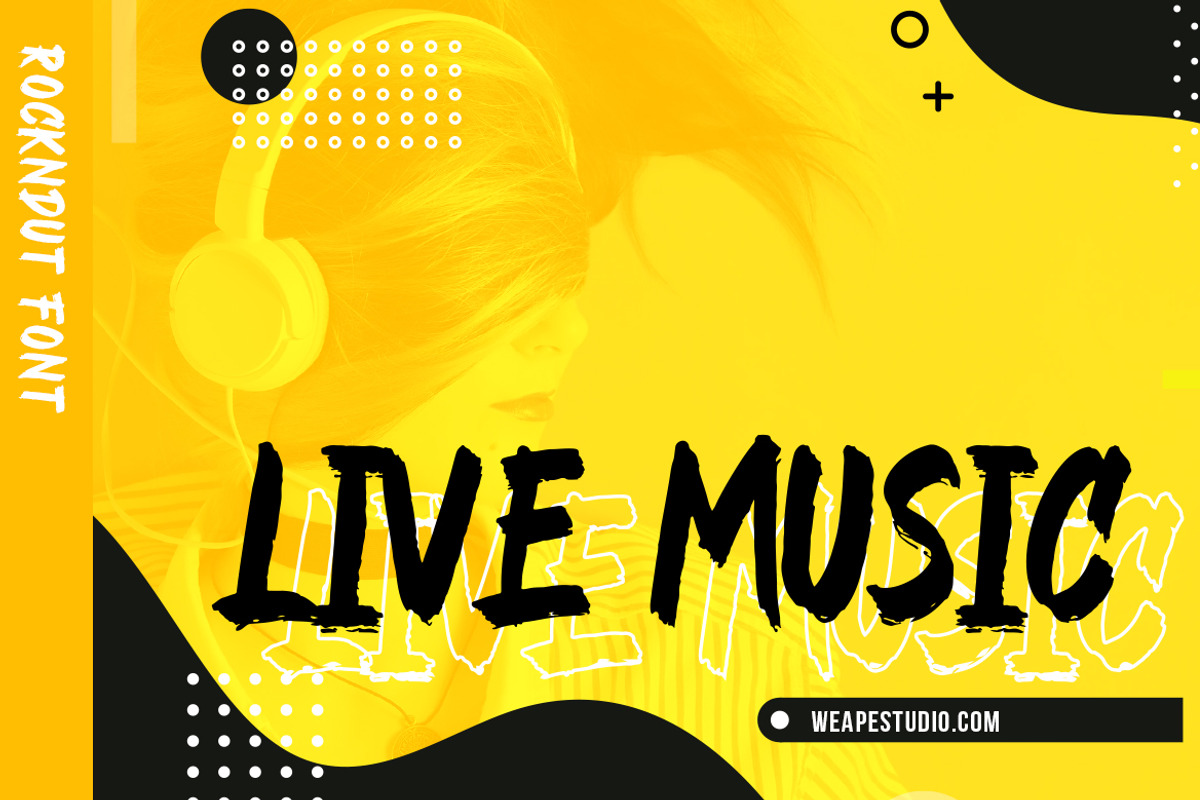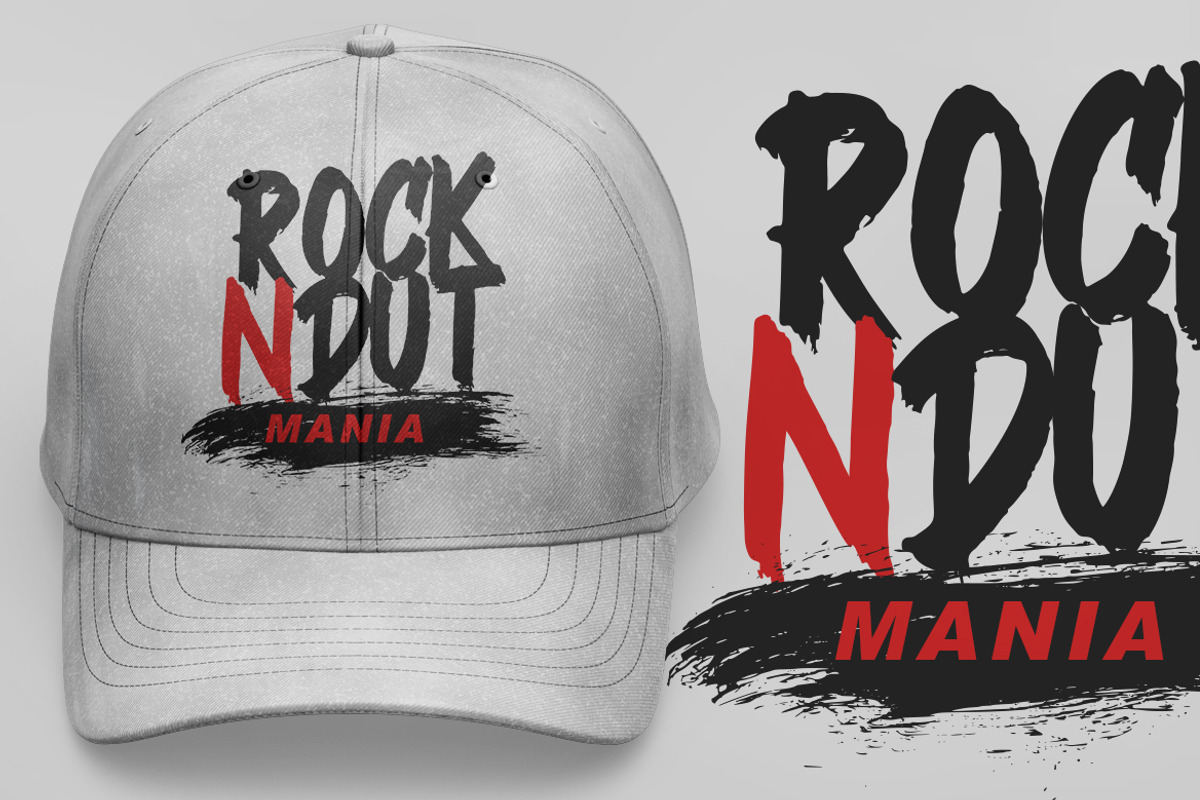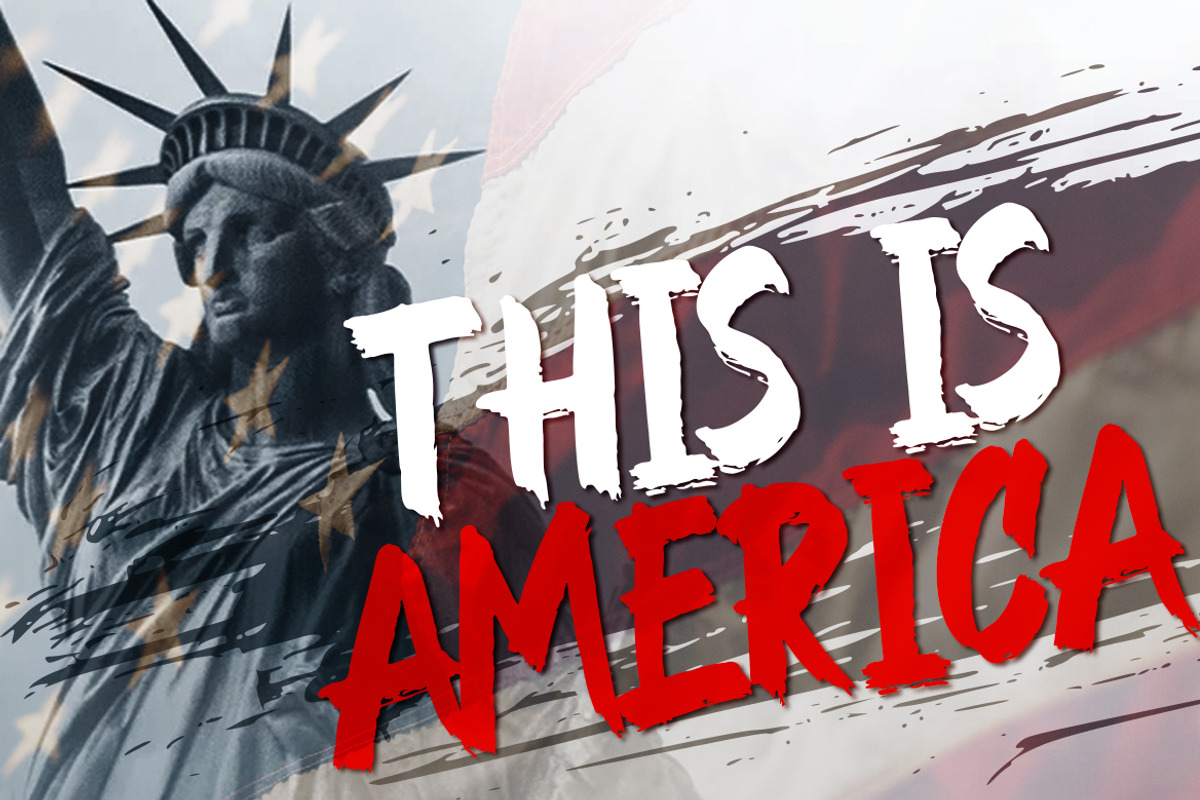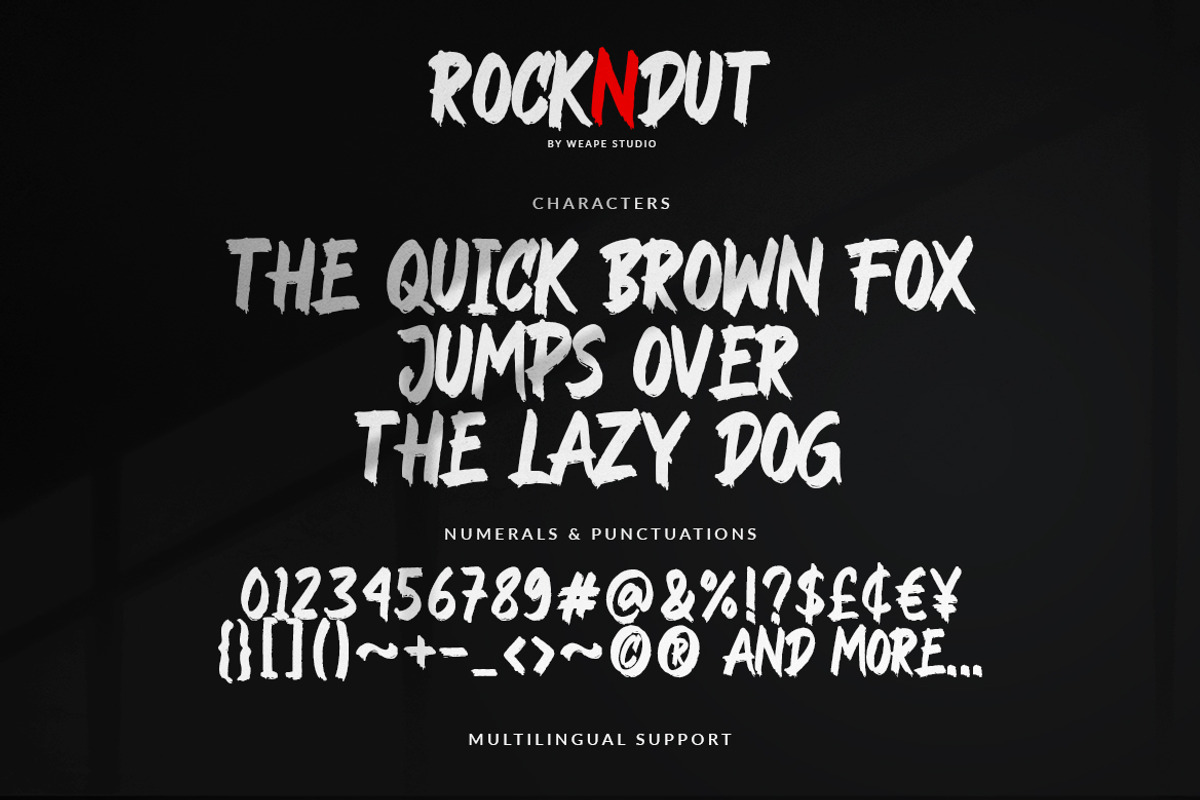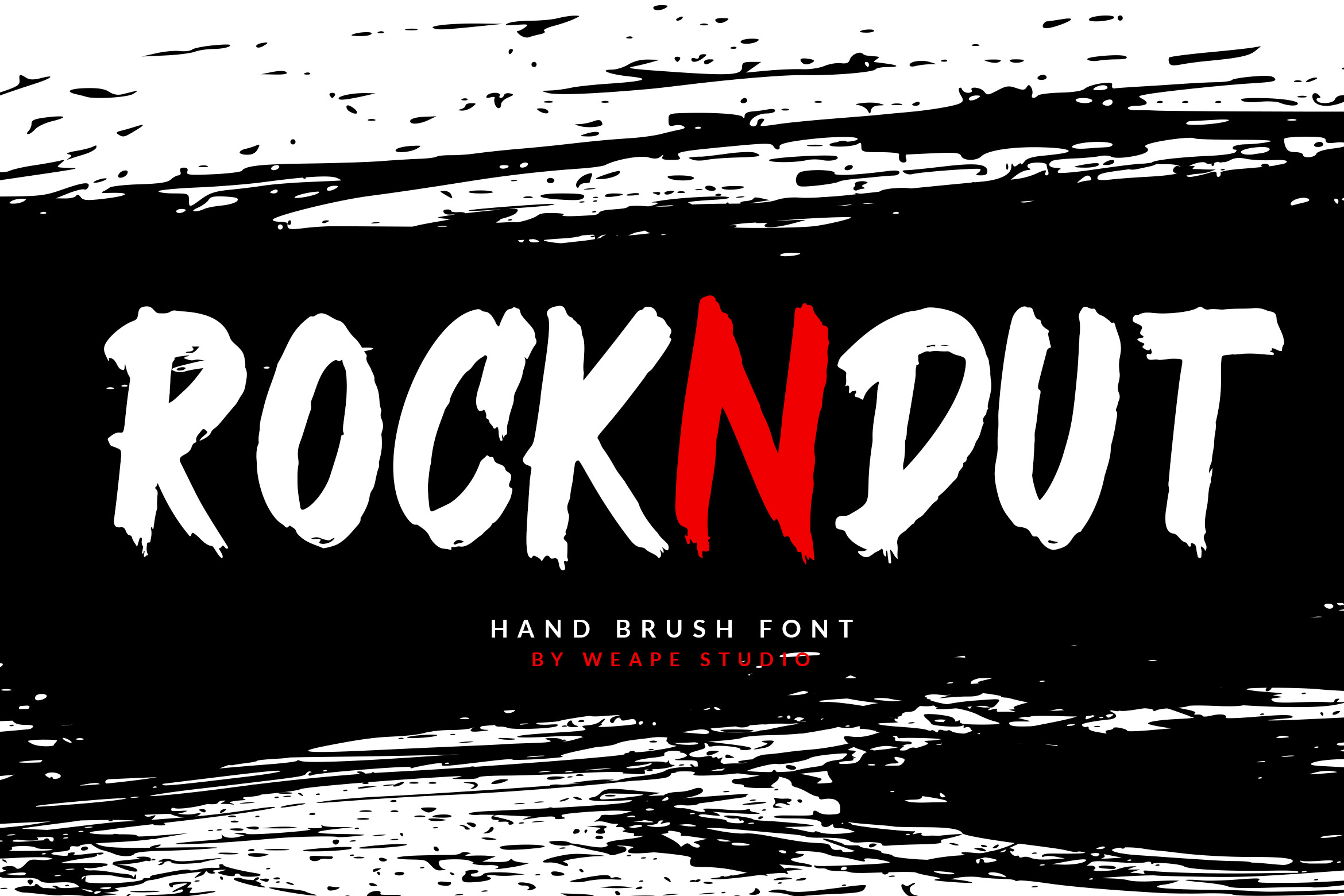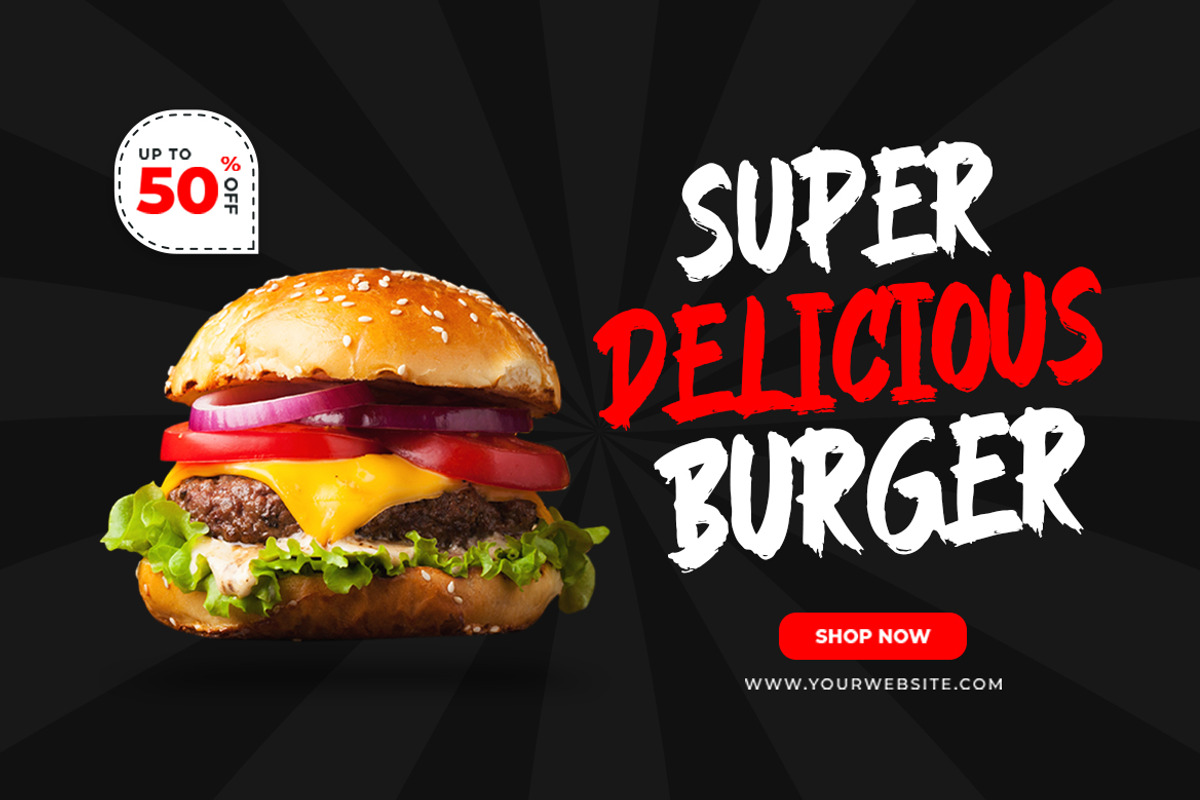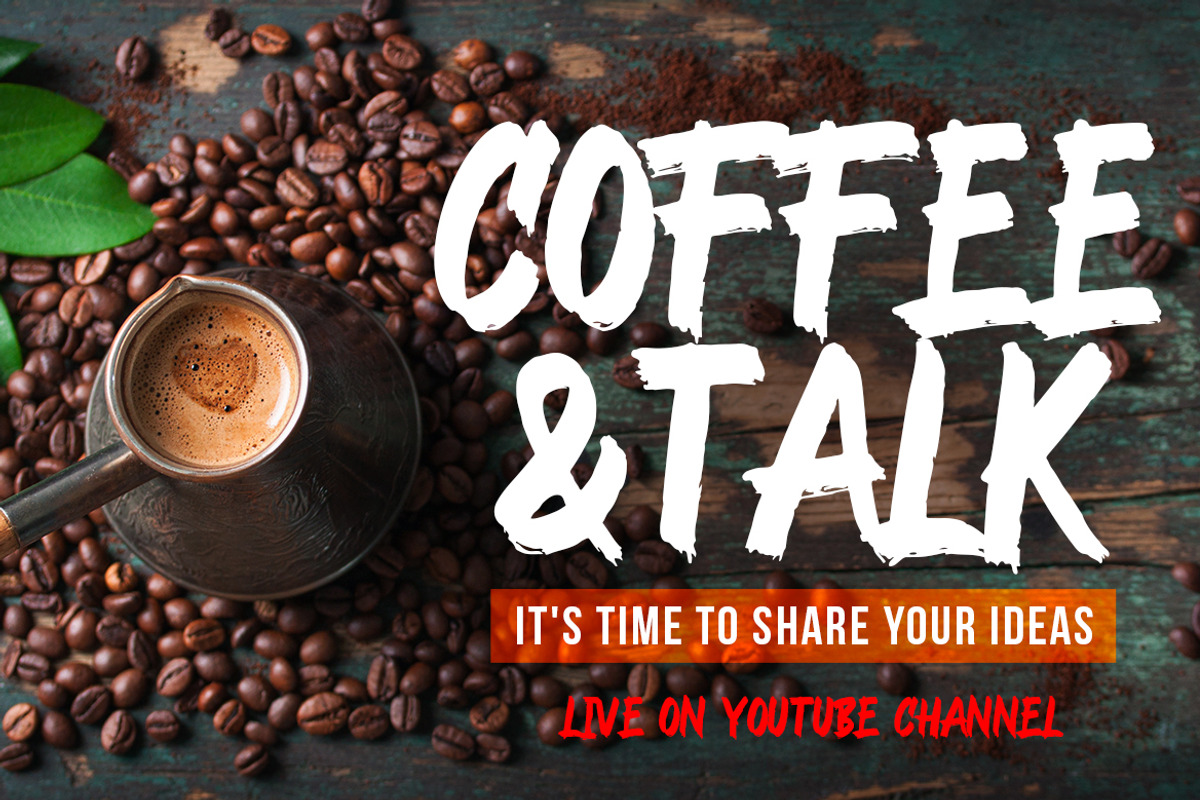
ROCKNDUT - Hand Brush Font
ROCKNDUT is brush font bursting with natural rough dry brush strokes, and the stroke of hand sharp and quickly. You can use and enjoy ROCKNDUT - Hand Brush Font, for anything from promotional material and handwritten quotes, to product packaging, merchandise and branding projects
And this font perfect for signature, logo, branding, poster, band, apparel, photography, title, social media post, ad banner, book cover, product packaging, handwritten quotes and advertising. You can create more easily with many ligatures and make it as if you wrote it yourself.
The font is all capital letter characters, numerals, multilingual support and a large range of punctuation. With OTF, TTF, WOFF, WOFF2 format.